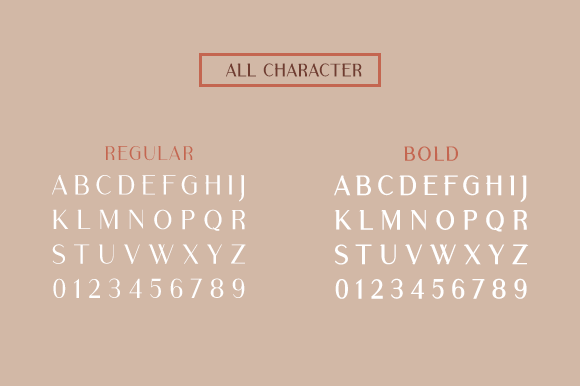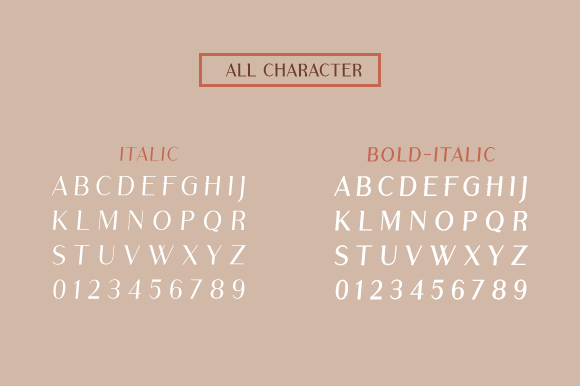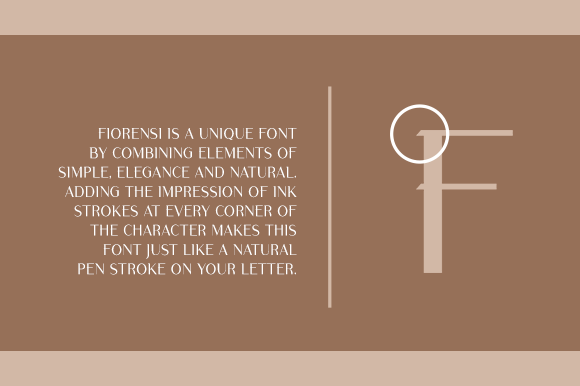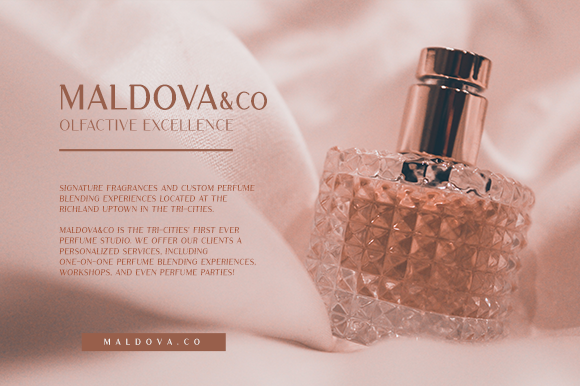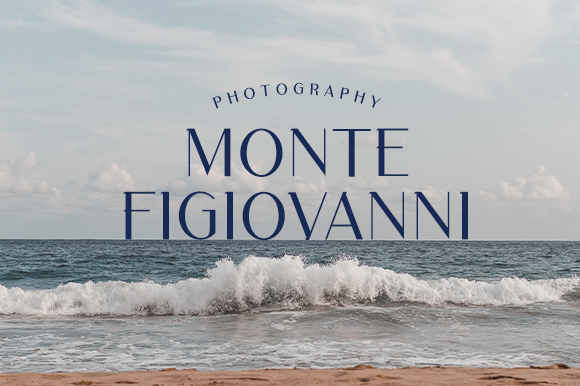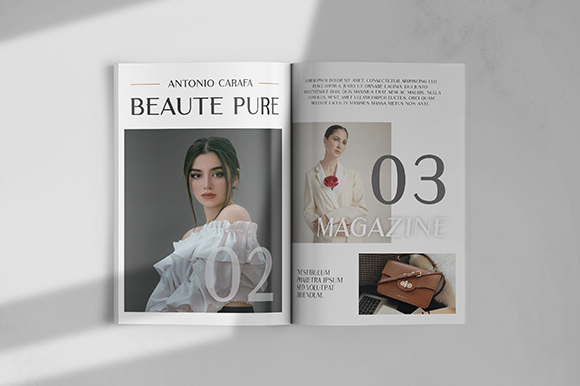
Introduction to Fiorensi Font
As a designer, have you ever found yourself staring at a blank canvas, trying to bring your creative vision to life? The perfect font can make all the difference. I recall a moment when I was working on a project and stumbled upon the Fiorensi Font. Its elegant and cool serif style instantly elevated the design, making it stand out from the rest.
But what makes the Fiorensi Font so special? This high-quality font is not only visually appealing but also incredibly versatile. With a simple yet strong design, it’s perfect for a wide range of creative projects, from branding to editorial design. And the best part? It’s a free download, making it an invaluable resource for designers of all levels.
Whether you’re working on a complex design or a simple graphic, the Fiorensi Font is sure to bring a touch of sophistication to your work. Its transparent background and clean lines make it a great choice for any design project, and its elegant style is sure to impress. In this article, we’ll dive deeper into the world of Fiorensi Font and explore why it’s a valuable addition to any designer’s toolkit.
Key Features of Fiorensi Font
- High-quality design: The Fiorensi Font is a well-crafted, high-quality design resource ideal for creative projects.
- Unique characteristics: The Fiorensi Font boasts a distinctive, elegant design that sets it apart from other fonts in its category.
- Perfect for creative projects: Whether you’re working on a branding project, a website, or a print campaign, the Fiorensi Font is an excellent choice due to its versatility and high-quality design.
Honest Review: Fiorensi Font
I recently came across the Fiorensi Font, a high-quality design resource that has caught my attention. The font is available for free download, which is a definite plus for designers working on creative projects on a budget.
What I like about the Fiorensi Font is its elegant and sophisticated design, making it perfect for a wide range of applications, from logos to signage. The font’s transparent background also allows for seamless integration with other design elements.
- ✨ High-quality design with a touch of elegance and sophistication
- ⚠️ Limited font weights, which might not be ideal for designers who require a wide range of font weights for their project
- ⚠️ Not ideal for use in small text sizes, as the font may become difficult to read
Overall, I’m impressed with the Fiorensi Font’s design and versatility. While it may have some limitations, it’s a great resource for designers working on creative projects that require a touch of elegance and sophistication.